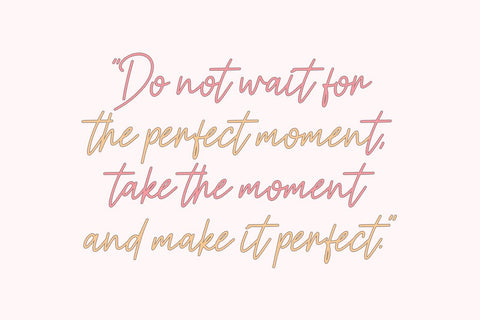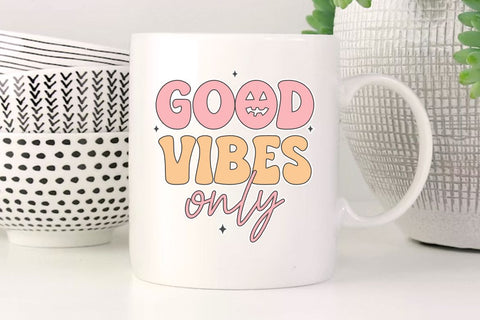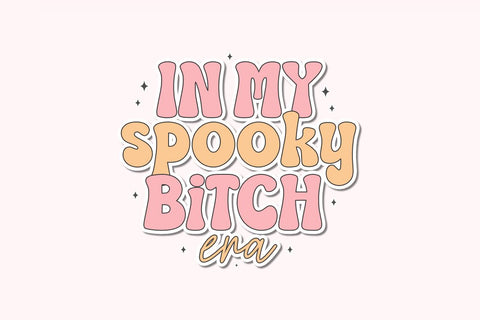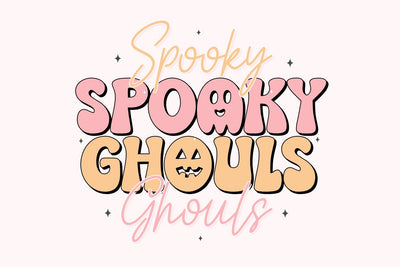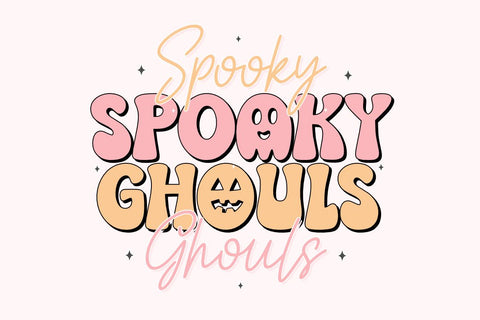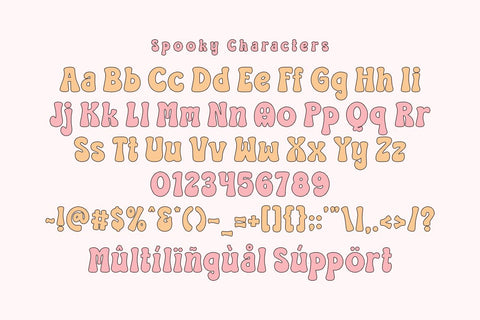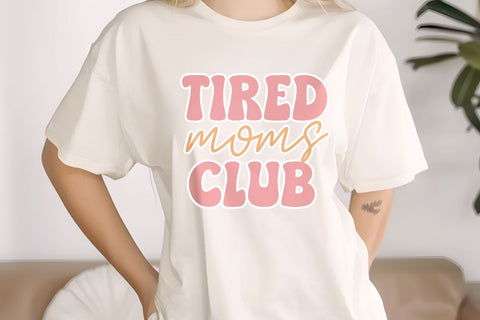
Spooky Ghouls - Playful Halloween Duo Font
Spooky ghouls is a delightful Halloween Font Duo specially crafted to bring a fun, friendly, and festive vibe to your seasonal designs. This pack features a bold, chunky display font paired with a smooth, casual handwriting script, allowing you to create perfectly balanced and eye-catching compositions. Complete with adorable ghost and pumpkin character accents, its clean and solid construction is optimized for the crafting community, ensuring a seamless and frustration-free experience for vinyl cutting, sublimation, and high-quality digital printing.
Perfect for: creating high-impact SVG cut files, Halloween party invitations, trick-or-treat tote bags, spooky-cute t-shirts, festive stickers, autumn mugs, and playful social media graphics. Whether you are a professional Print on Demand (POD) seller or working on a special DIY holiday project, this font duo provides the ideal balance of readability and whimsical charm.
Great for holiday themes such as Halloween, Autumn/Fall festivals, Children's costume parties, and Fall celebrations, adding a sweet, cheerful, and festively spooky personality to all your seasonal design collections!